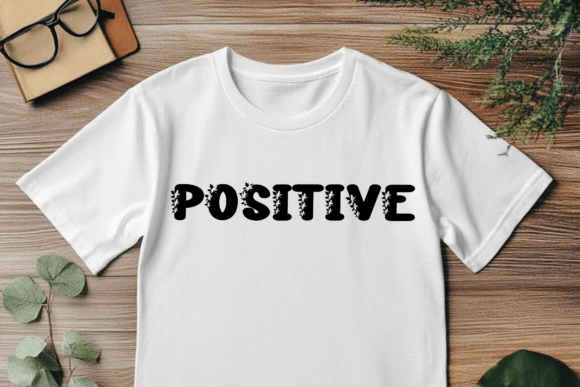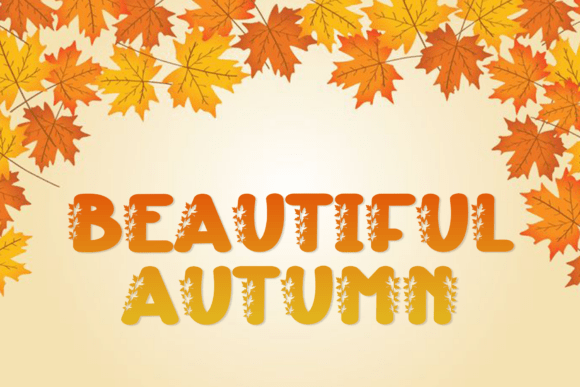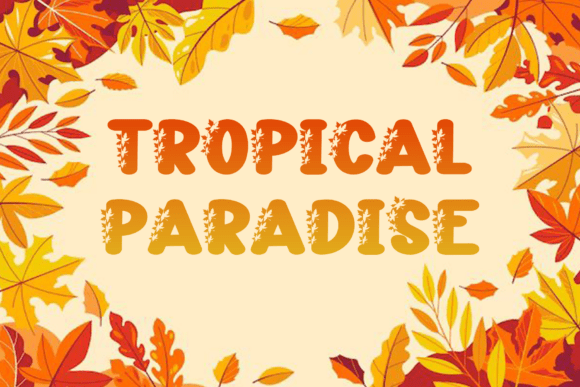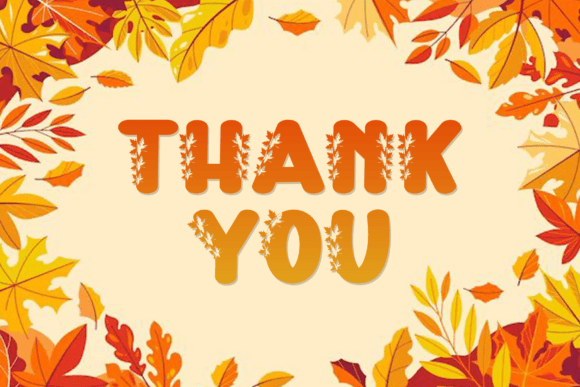
Embracing the Cozy Season with Autumn Vibes Font
As the leaves change colors and the air grows crisper, designers and crafters alike start to look for inspiration to capture the essence of autumn in their projects. Whether you’re creating Thanksgiving invitations, autumn sales promotions, seasonal cards, or crafts, having the right font can make all the difference. That’s where the Autumn Vibes Font comes into play – a creative and seasonal display font that embodies the warmth and playfulness of the fall season.
What is Autumn Vibes Font?
Autumn Vibes is a charming display font, meticulously designed with charming leaf details that instantly evoke the feeling of fall. This font is not just a tool for typing; it’s an element that can add a seasonal touch to any project. Its unique design, characterized by whimsical and elegant strokes, makes it perfect for a variety of applications, from digital designs to print materials.
Key Features of Autumn Vibes Font
- Seasonal Relevance: The font’s design is deeply rooted in autumnal themes, making it highly relevant for fall-specific projects.
- Playful yet Elegant: The playful nature of the font doesn’t compromise on elegance, making it suitable for a wide range of projects, from casual crafts to more formal invitations.
- Decorative Leaf Details: The inclusion of charming leaf details sets this font apart, adding a decorative element that’s instantly recognizable as autumnal.
- Versatility: Despite its seasonal theme, the Autumn Vibes Font can be used in various contexts, proving to be a versatile addition to any designer’s toolkit.
Uses of Autumn Vibes Font
The versatility of the Autumn Vibes Font means it can be used in a multitude of projects. Here are a few ideas:
- Thanksgiving Invitations: Create warm and inviting Thanksgiving dinner invitations that set the tone for a cozy family gathering.
- Autumn Sales and Promotions: Use the font to craft eye-catching promotions and advertisements that capture the essence of autumn sales.
- Seasonal Cards: Design beautiful seasonal cards for friends and family, or for business purposes, that resonate with the autumn theme.
- Crafts and DIY Projects: Incorporate the font into your fall-themed crafts and DIY projects, such as handmade cards, decorations, and more.
Why Choose Autumn Vibes Font?
In a sea of generic fonts, the Autumn Vibes Font stands out for its unique theme and design. Here are a few reasons why designers and crafters might choose this font:
- Unique Aesthetic: The font’s autumnal aesthetic is unique and immediately recognizable, helping your projects stand out.
- Easy to Use: Designed with user-friendliness in mind, the Autumn Vibes Font can be easily integrated into various design projects.
- Seasonal Relevance: For projects with a fall theme, this font provides a relevance that generic fonts can’t match.
Tips for Using Autumn Vibes Font
To get the most out of the Autumn Vibes Font, consider the following tips:
- Pair with Complementary Fonts: For body text, pair the Autumn Vibes Font with a simpler, easy-to-read font to create visual balance.
- Experiment with Colors: Take advantage of autumnal color palettes like oranges, yellows, and browns to enhance the seasonal feel.
- Play with Sizes: Use varying font sizes to create a dynamic look, emphasizing key messages or titles.
In conclusion, the Autumn Vibes Font is a delightful addition to any designer’s or crafter’s toolkit, especially those looking to infuse their projects with the cozy, inviting essence of autumn. Its unique design, combined with its versatility and seasonal charm, makes it an excellent choice for a wide range of fall-themed projects.